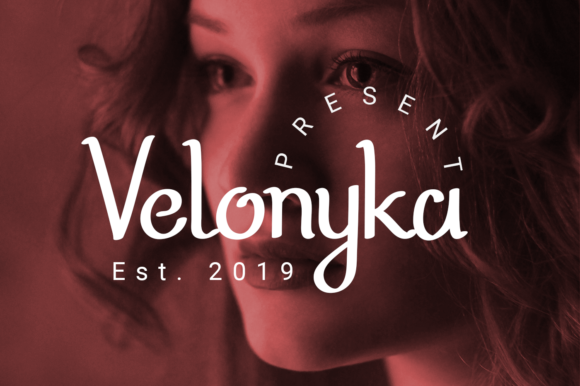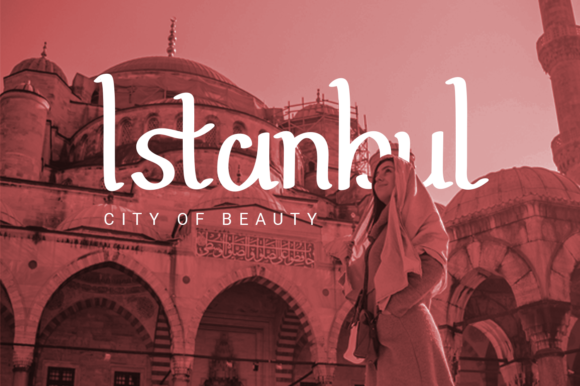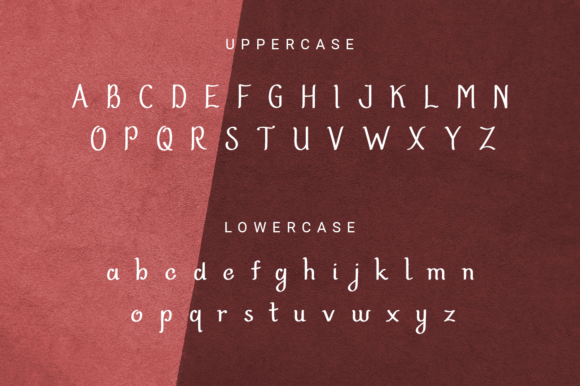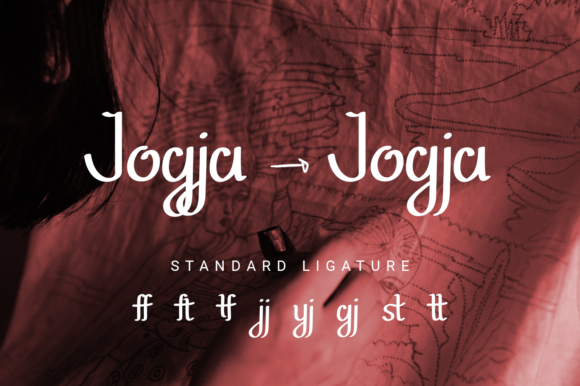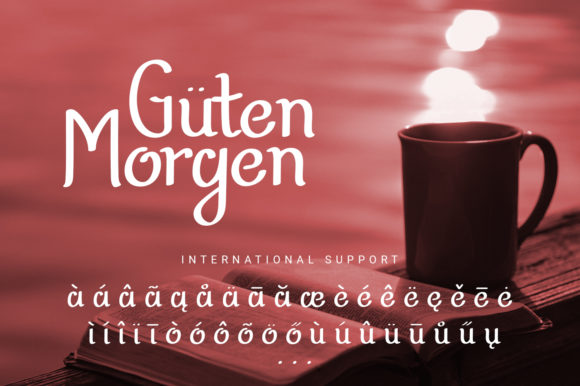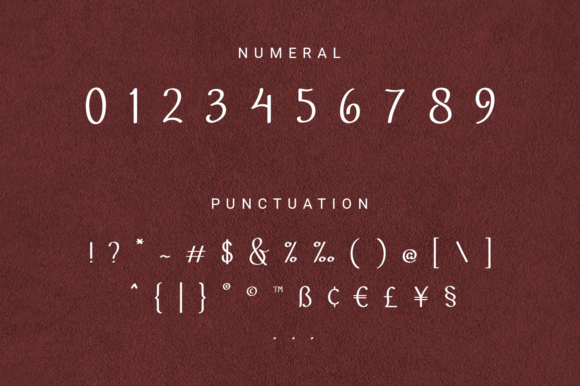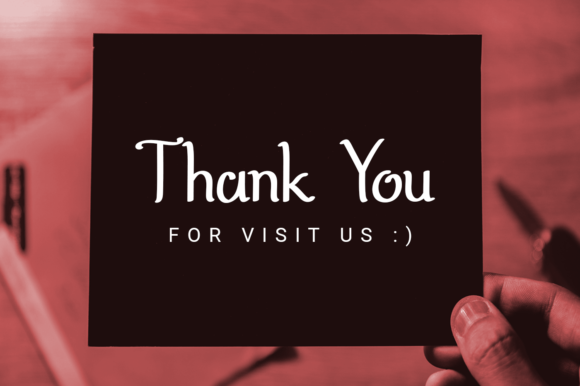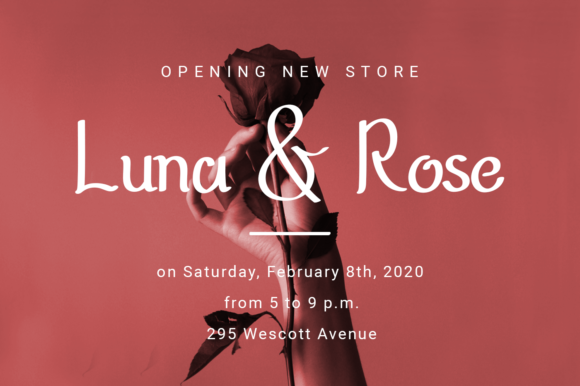
HomeScript FontsVelonyka Font Script Fonts Velonyka Font FacebookXPinterestWhatsApp Velonyka Font Poster 2 Velonyka Font Poster 3 Velonyka Font Poster 4 Velonyka Font Poster 5 Velonyka Font Poster 6 Velonyka Font Poster 7 Velonyka Font Poster 8 About Velonyka Font Velonyka is an elegant and friendly script font that will easily make any design idea stand out. DOWNLOAD ON CREATIVE FABRICAThis font is sold and delivered by Creative Fabrica. Font Canyon may earn a commission if you buy through this link. People also explored Christmas Font Simplehome Font Adelin Font The Smell After Rain Font Mylesbury Font Angelina Font The Speech Bubbles Font Nuga – Slab Serif Font School Font 289 0 TagsVelonyka Font Previous articleAmstirdam FontNext articleMelanie Font LEAVE A REPLY Cancel reply Comment: Please enter your comment! Name:* Please enter your name here Email:* You have entered an incorrect email address! Please enter your email address here Website: Save my name, email, and website in this browser for the next time I comment. Personal Use Free Baby Cute Personal Use Free Read more about this font BD Alm Personal Use Free Read more about this font Jelly Fish Personal Use Free Read more about this font Degrassi Personal Use Free Read more about this font BLOG Modern Sans-Serif Fonts That Brands Love in 2025 In 2025, modern sans-serif fonts remain a top choice for brands looking to project clarity, professionalism, and... The 10 Best Handwriting Fonts to Add Personality to Your Designs How to Install and Use Fonts on Windows, macOS, and Web Projects 5 Fonts That Will Dominate Design Trends in 2026